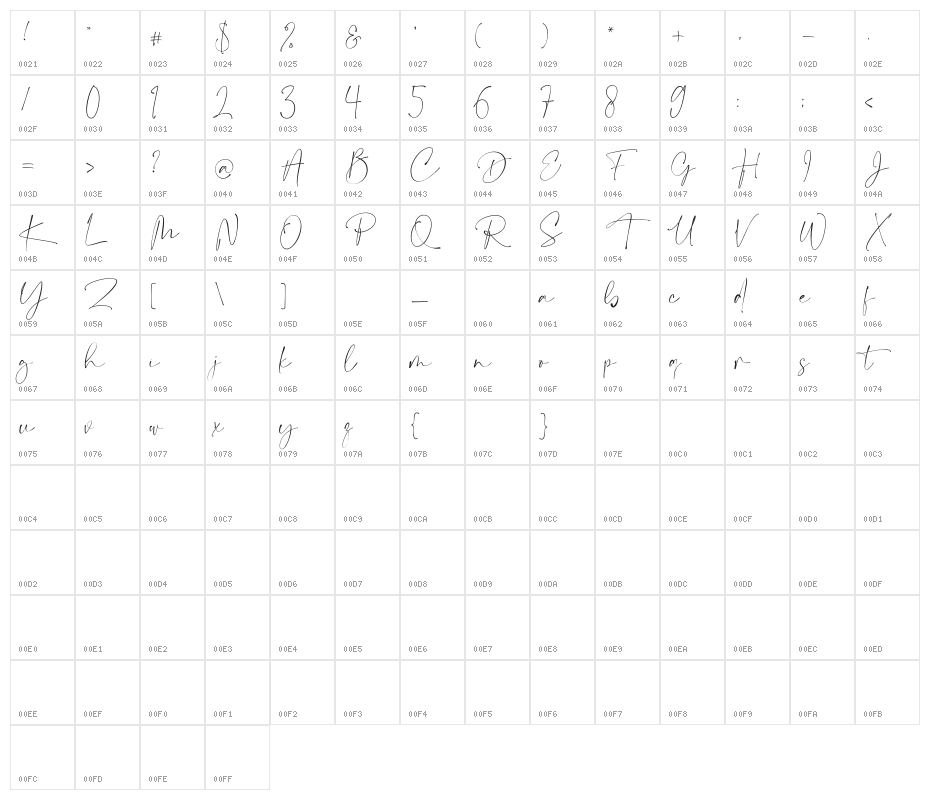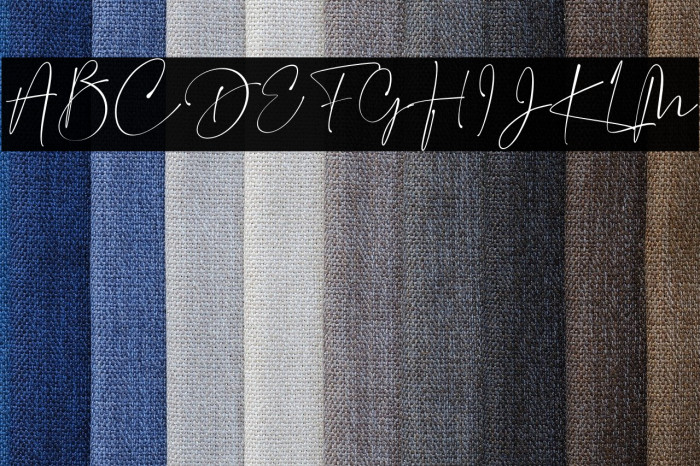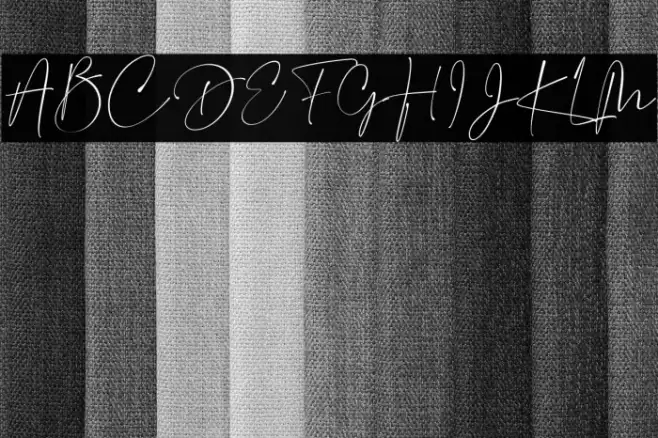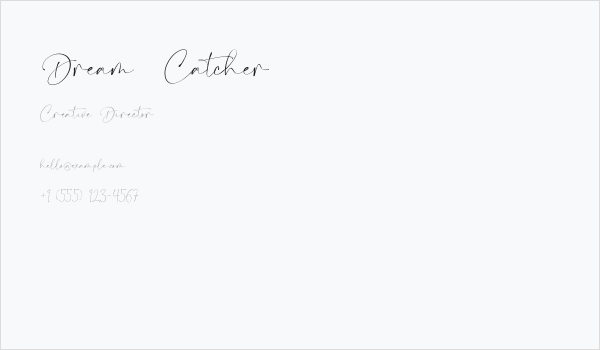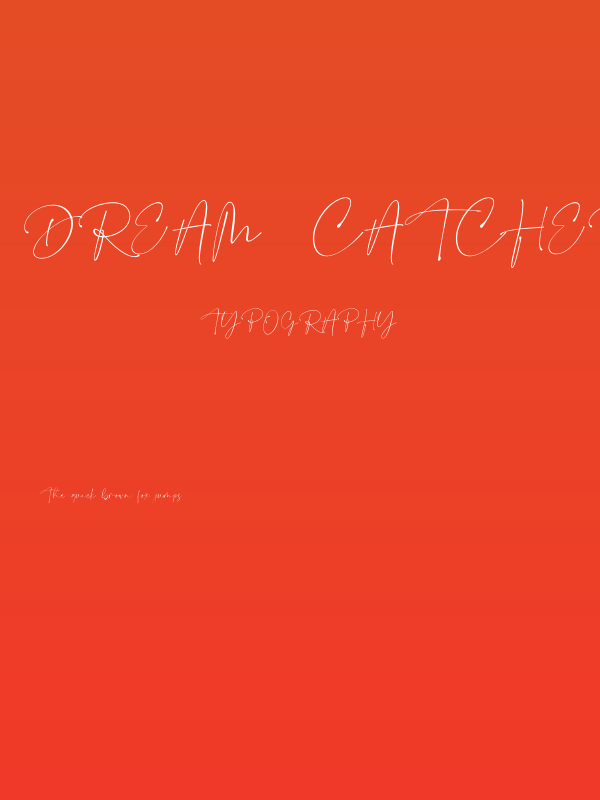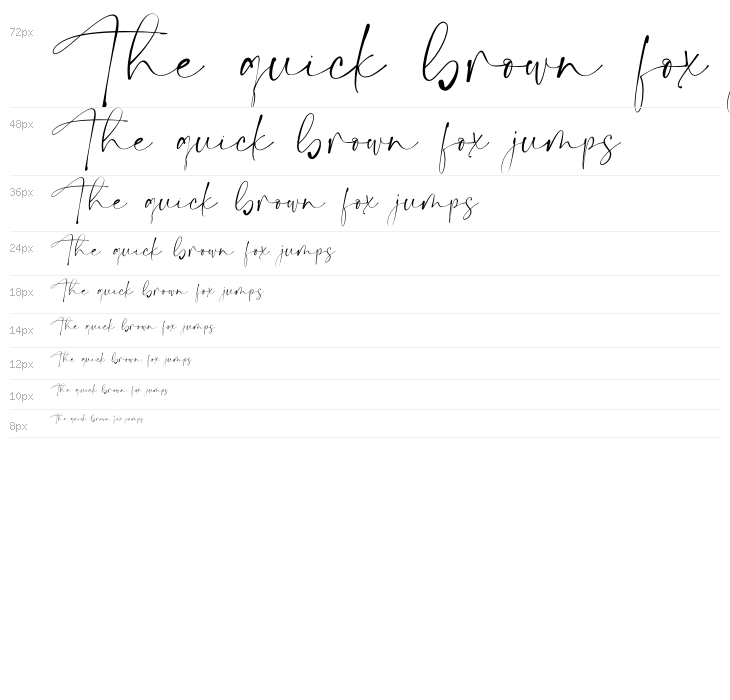
Dream Catcher Font
Dream Catcher Description
This font exhibits a fluid, handwritten style with an elegant and artistic flair. The uppercase letters are tall and slender, featuring delicate loops and swirls that add a whimsical touch. The lowercase characters maintain a consistent flow, with some letters extending below the baseline, enhancing the script's dynamic nature. Numbers are similarly styled, with a graceful curvature that complements the overall aesthetic. Special characters are integrated seamlessly, maintaining the font's cohesive appearance. This font is perfect for projects that require a personal, artistic touch, such as invitations, greeting cards, or branding materials.
| Proposed Projects | Ideal for wedding invitations, personal branding, greeting cards, and artistic projects. |